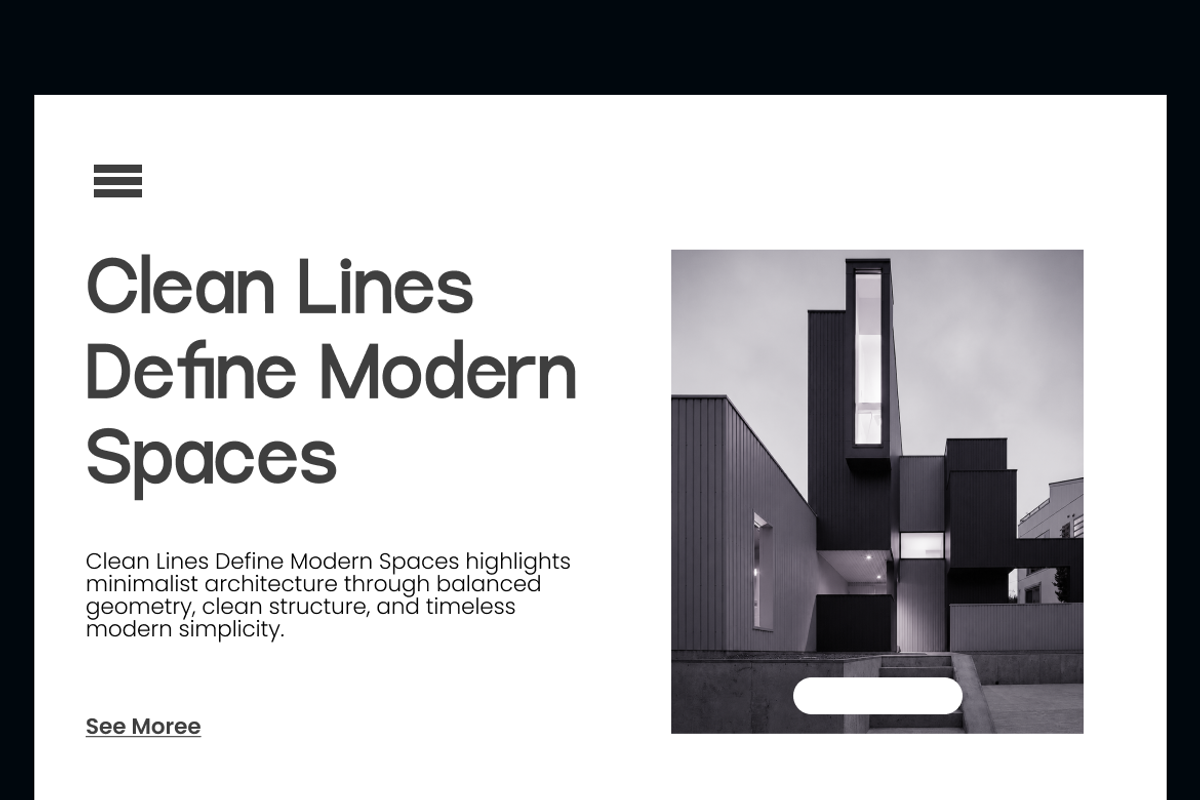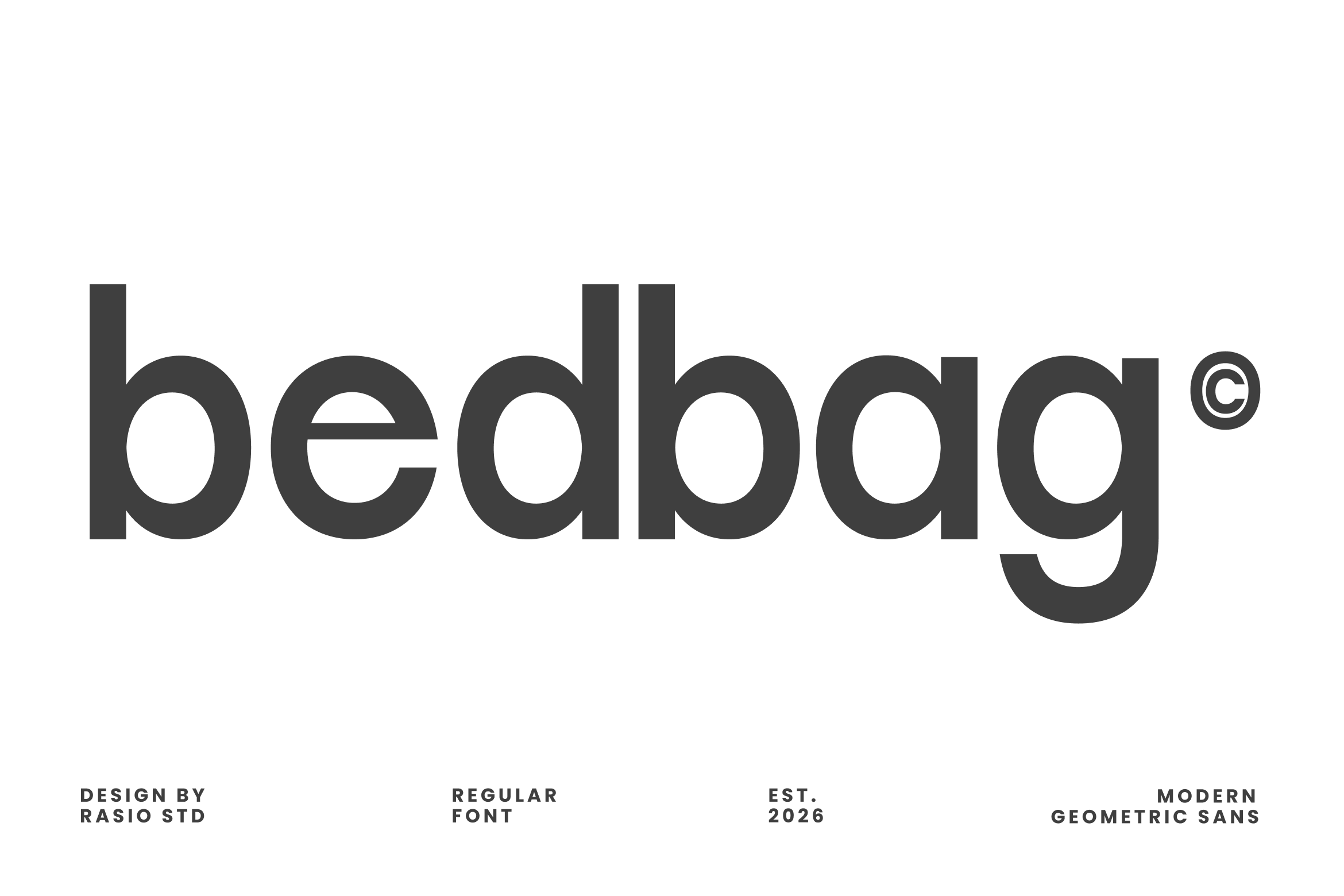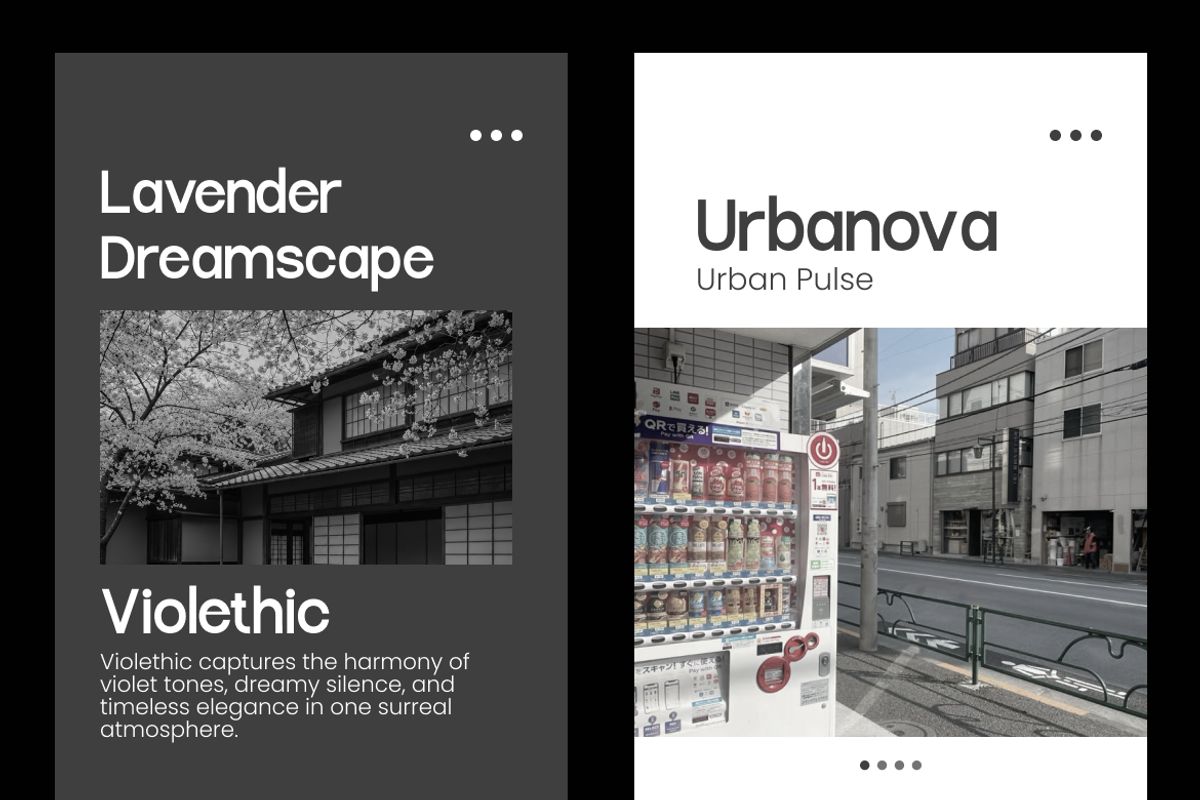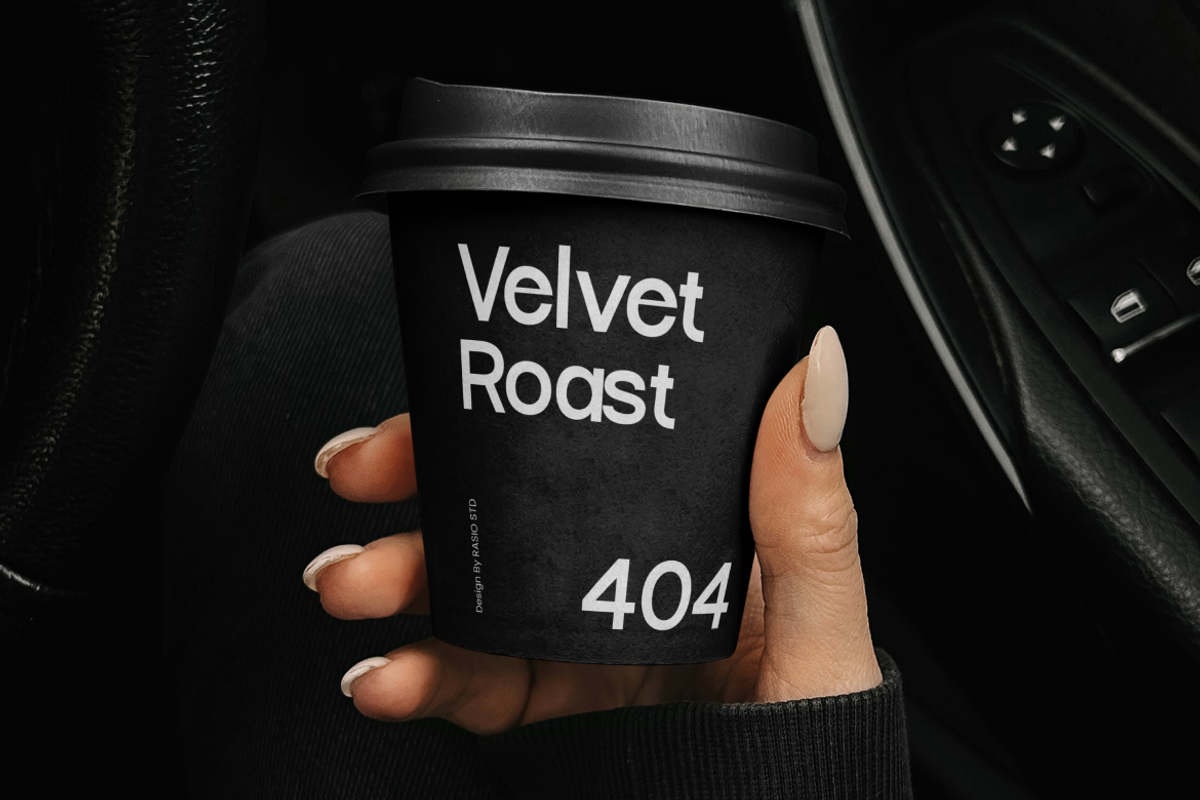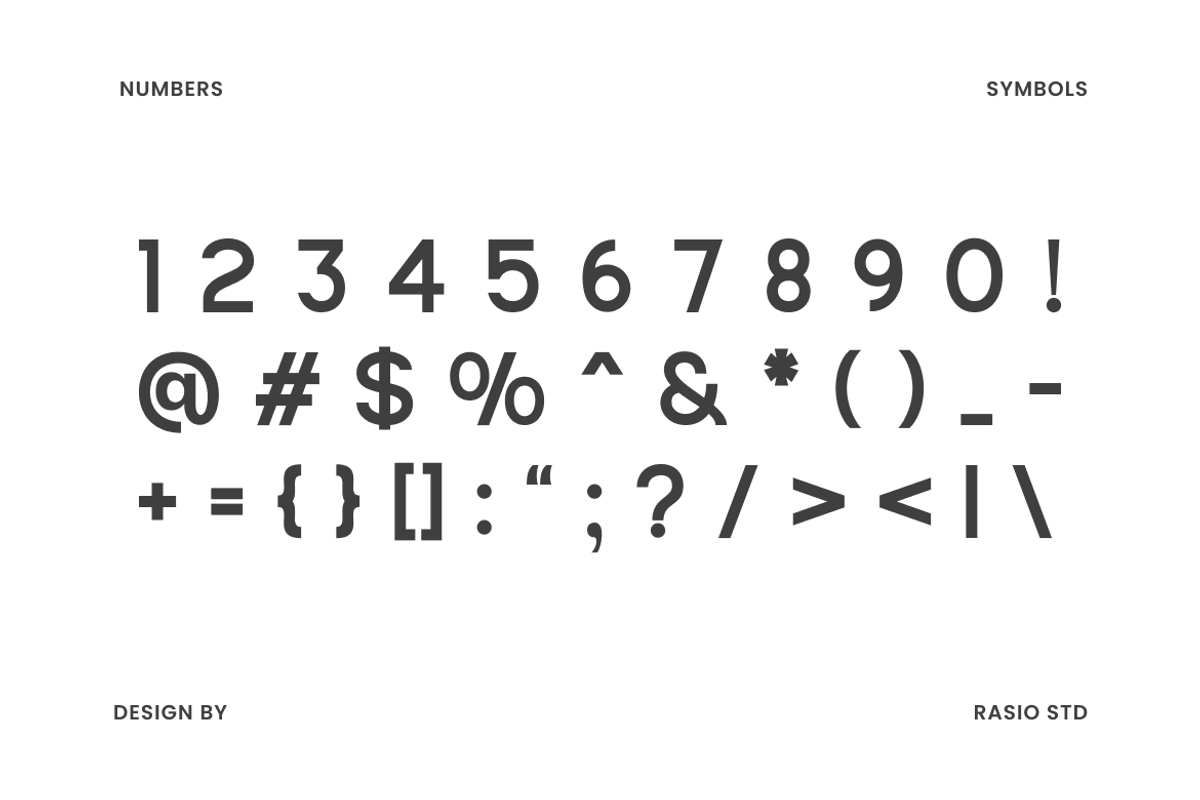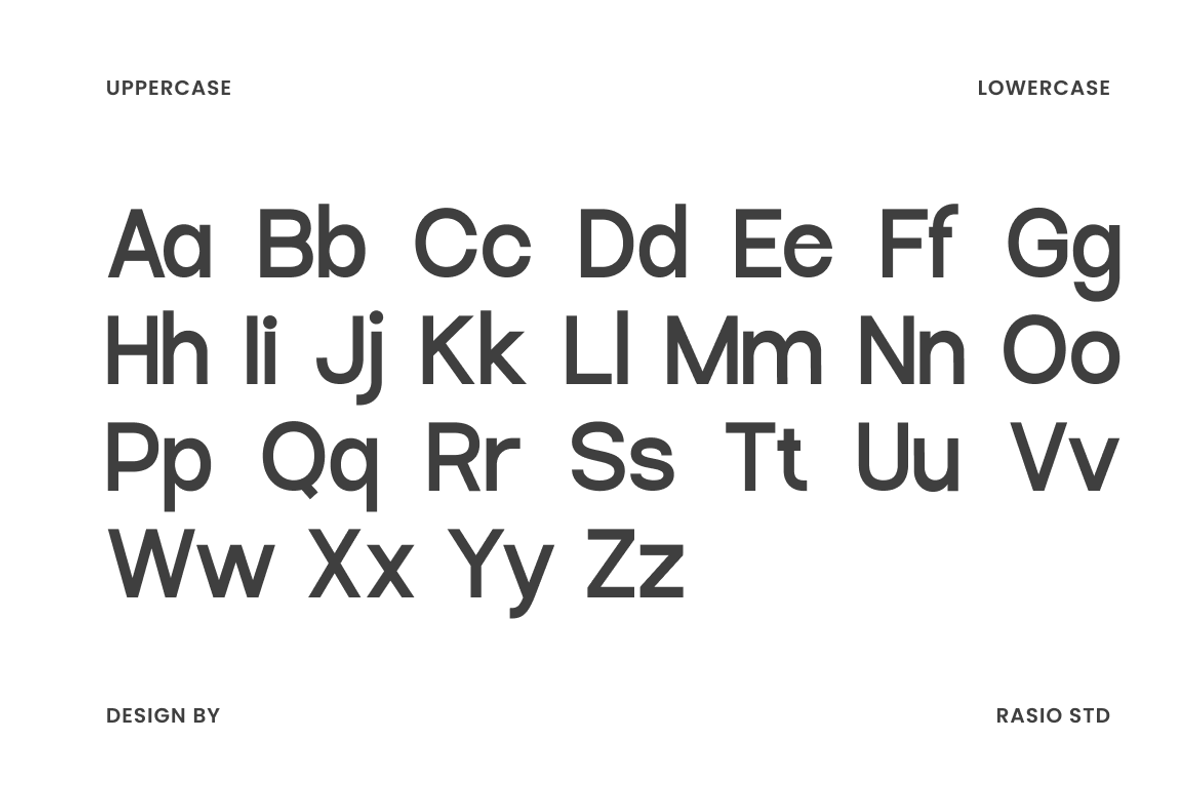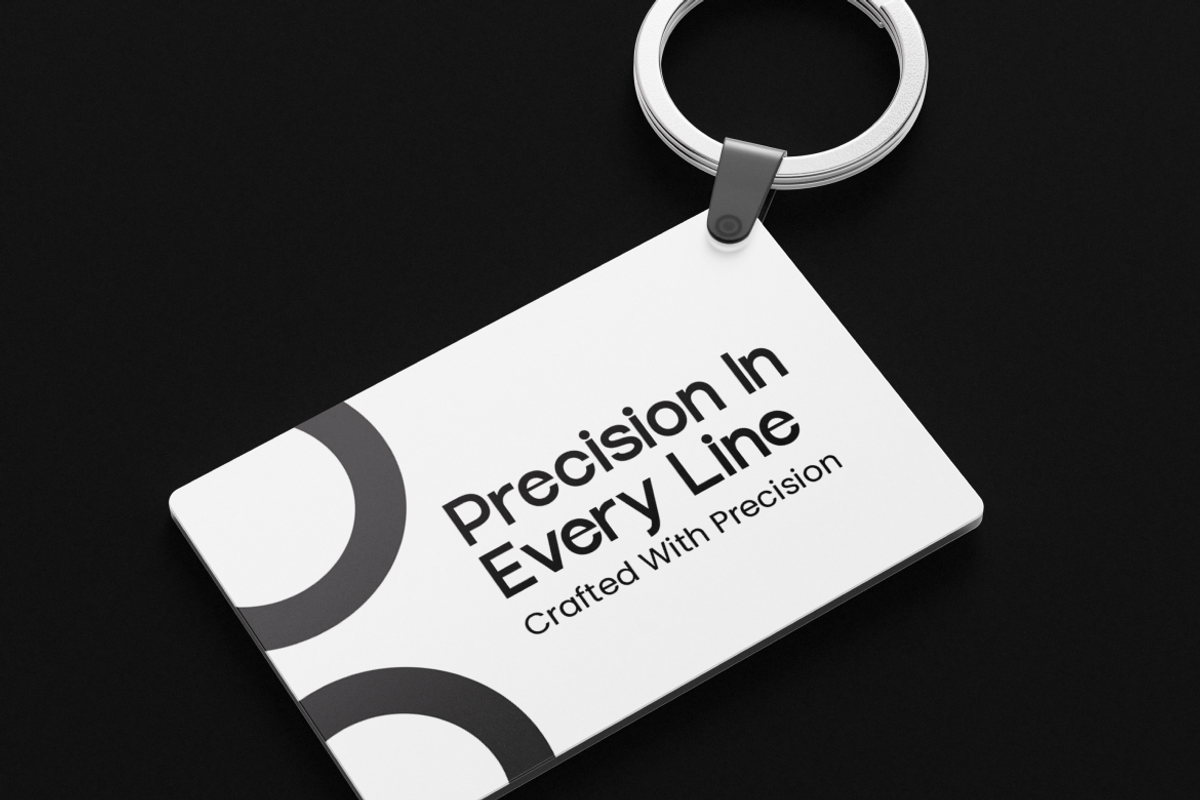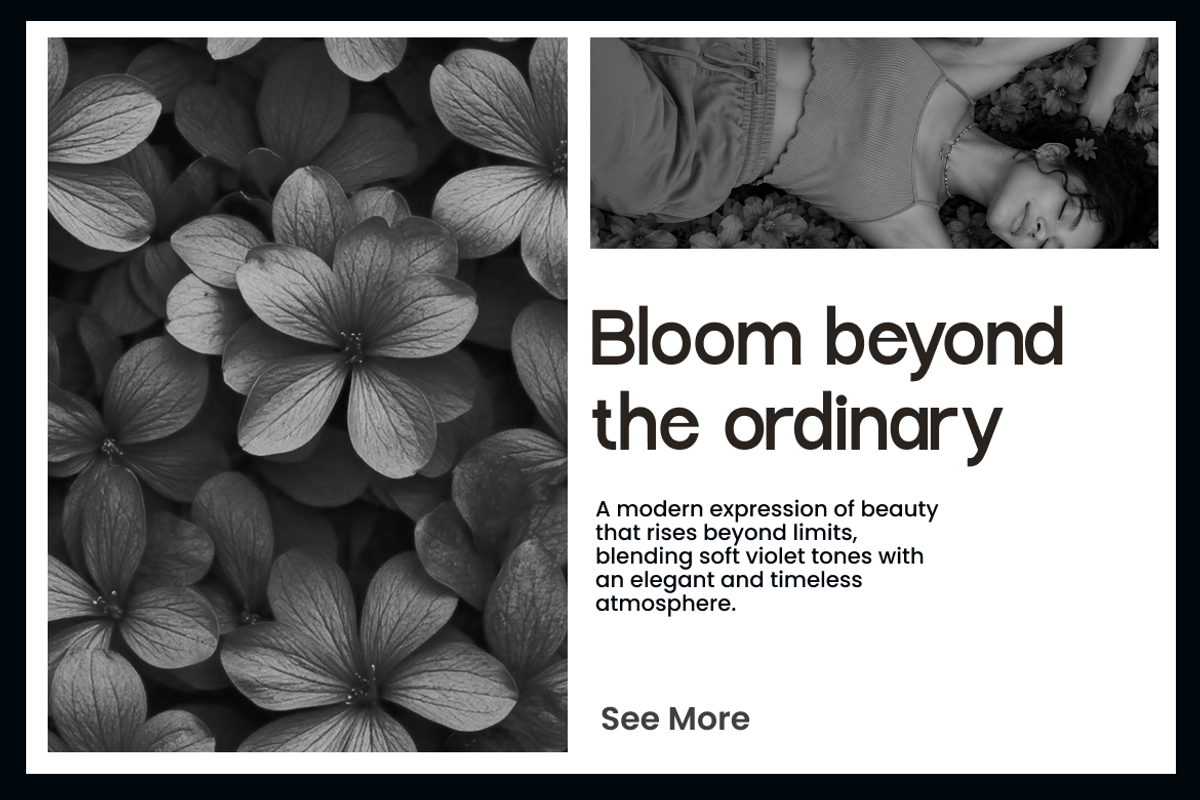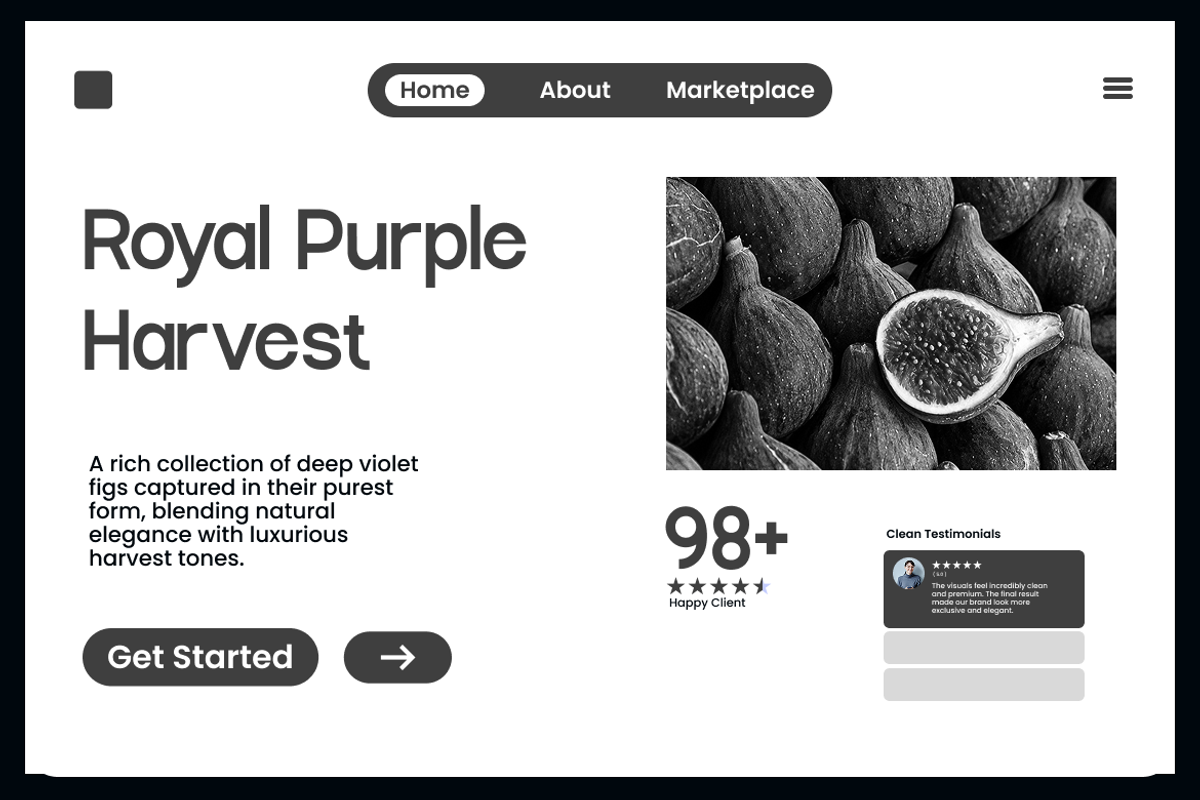
Bedbag Modern Geometric Sans Font
Bedbag is a clean modern geometric sans serif font crafted with balanced proportions, smooth curves, and minimalist structure for contemporary visual design. Featuring a neutral geometric appearance with excellent readability, this typeface delivers a professional and refined aesthetic suitable for both display and editorial purposes.Its versatile design works seamlessly across branding, architecture presentations, UI layouts, posters, websites, and modern corporate projects.
Relevance & Use Case is highly relevant for modern branding systems, architecture presentations, editorial layouts, UI/UX projects, website headers, minimalist posters, corporate identity designs, and clean visual communication. Its geometric structure and refined readability make it effective for professional marketing materials, business presentations, social media graphics, packaging, and digital interfaces that require a modern and sophisticated appearance.
Clean modern sans serif with balanced geometric and neo-grotesk construction
Minimalist letterforms with soft rounded edges for a contemporary appearance
Open counters and smooth curves that enhance readability across all sizes
Consistent stroke weight and structured proportions for a refined visual rhythm
Optimized spacing and versatile character shapes
Modern brand identity systems with clean professional aesthetics
UI/UX layouts for apps, websites, and digital platforms
Editorial magazines, presentations, and minimalist publications
Product packaging and label design with sleek typography
Social media templates and contemporary marketing visuals
Screen-optimized kerning for responsive web design
Supports numerals, punctuation, and extensive symbol set